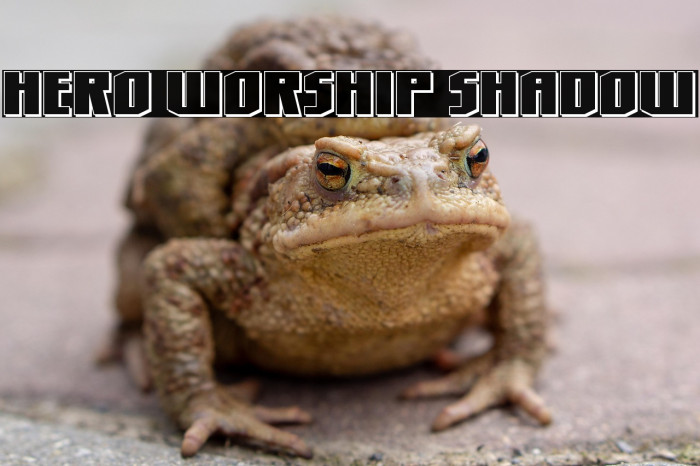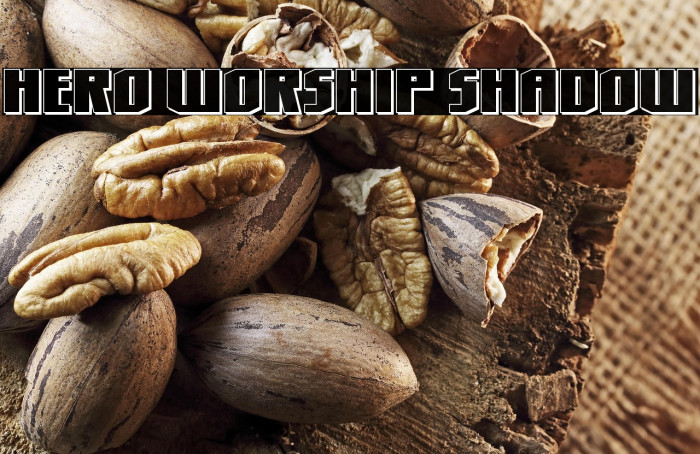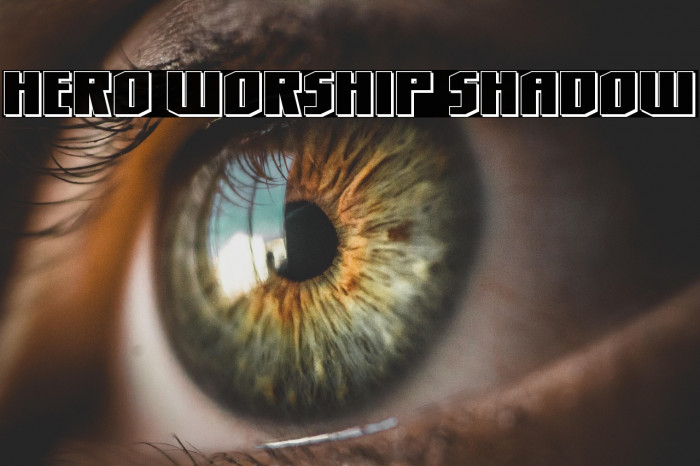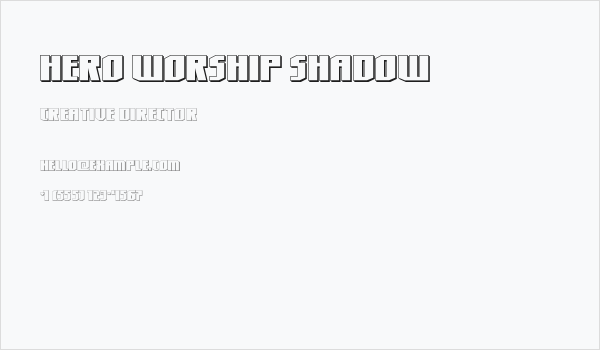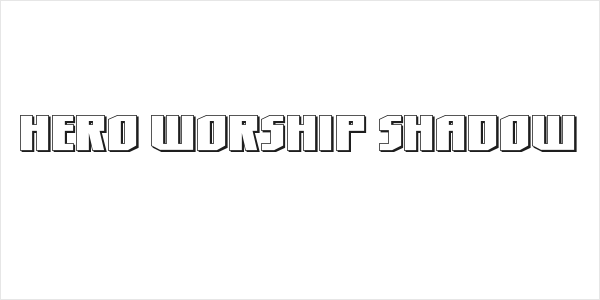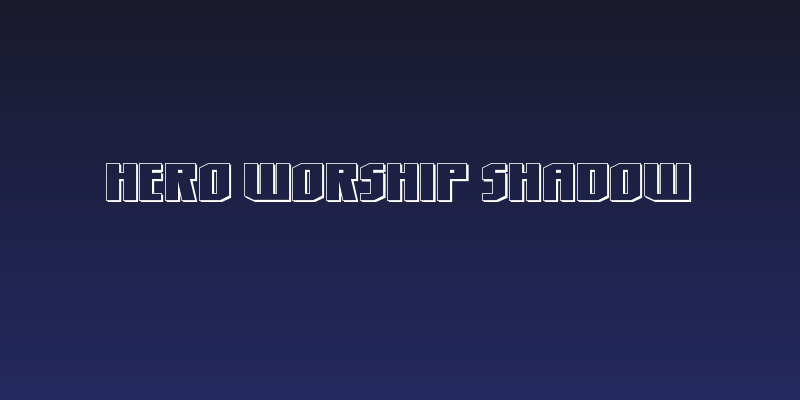
Hero Worship Shadow Font
Hero Worship Shadow Description
This font features a bold, geometric design with a distinct shadow effect that gives it a three-dimensional appearance. The characters are blocky and angular, with sharp edges and a strong presence. The shadow is consistently applied to the right side of each character, enhancing the depth and making the text stand out. The uppercase and lowercase letters maintain a uniform style, while the numerals and special characters are designed to match the bold and impactful aesthetic. This font is ideal for creating eye-catching headlines or titles that require a dramatic and modern look.
| Proposed Projects | Ideal for posters, logos, video game titles, and any design requiring a bold, impactful statement. |